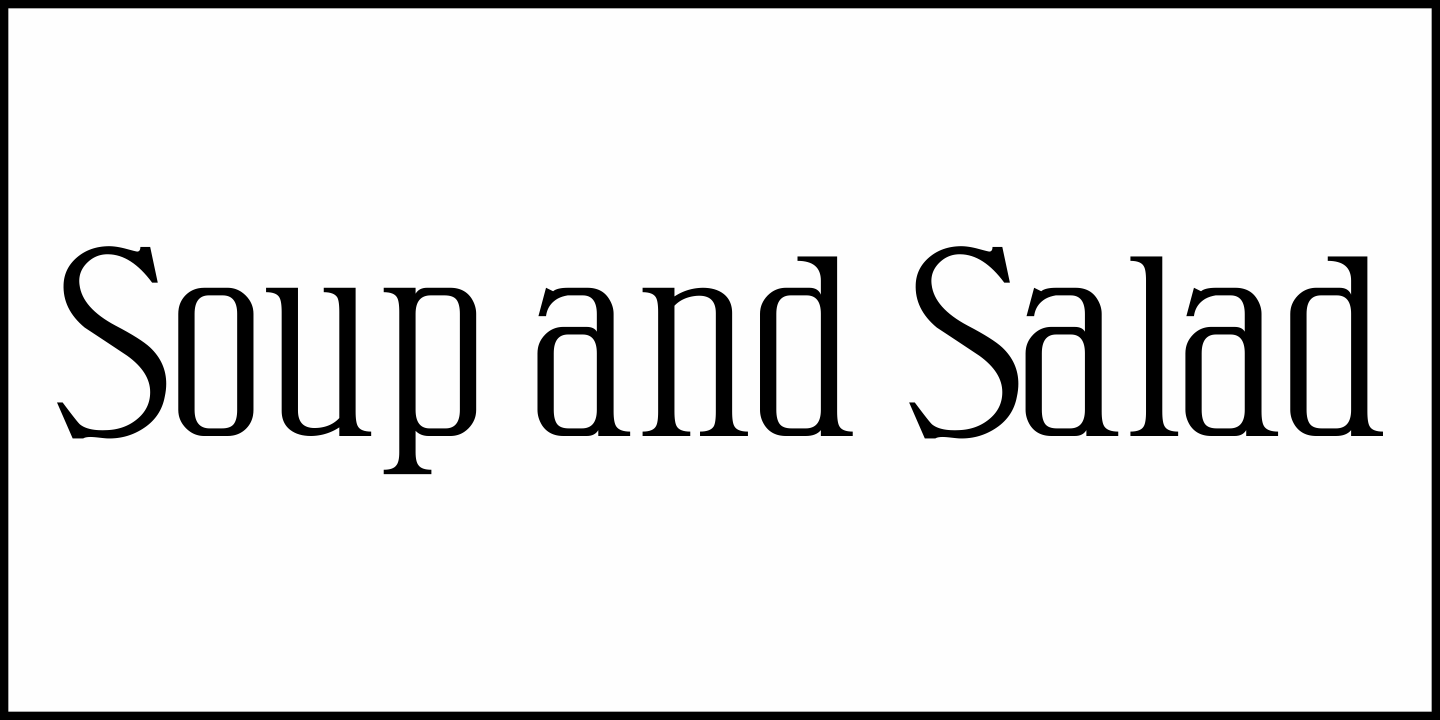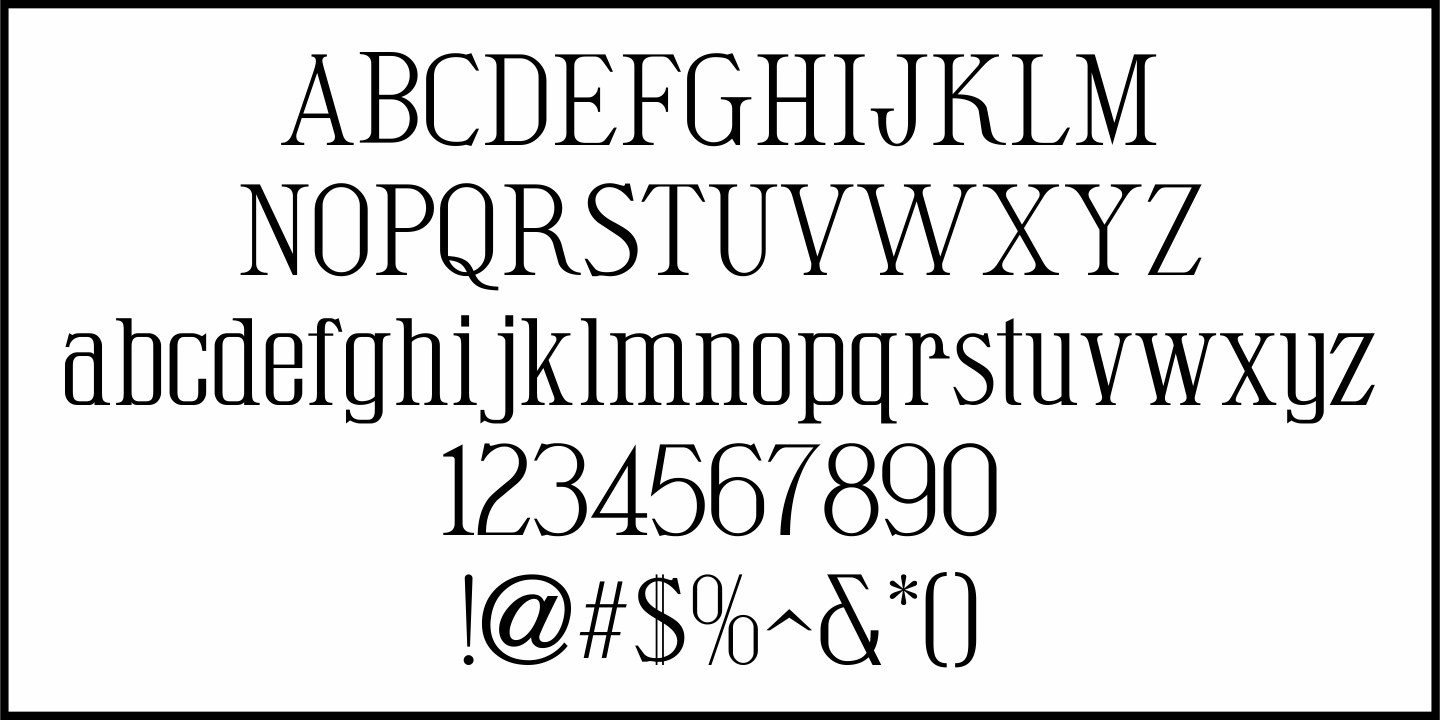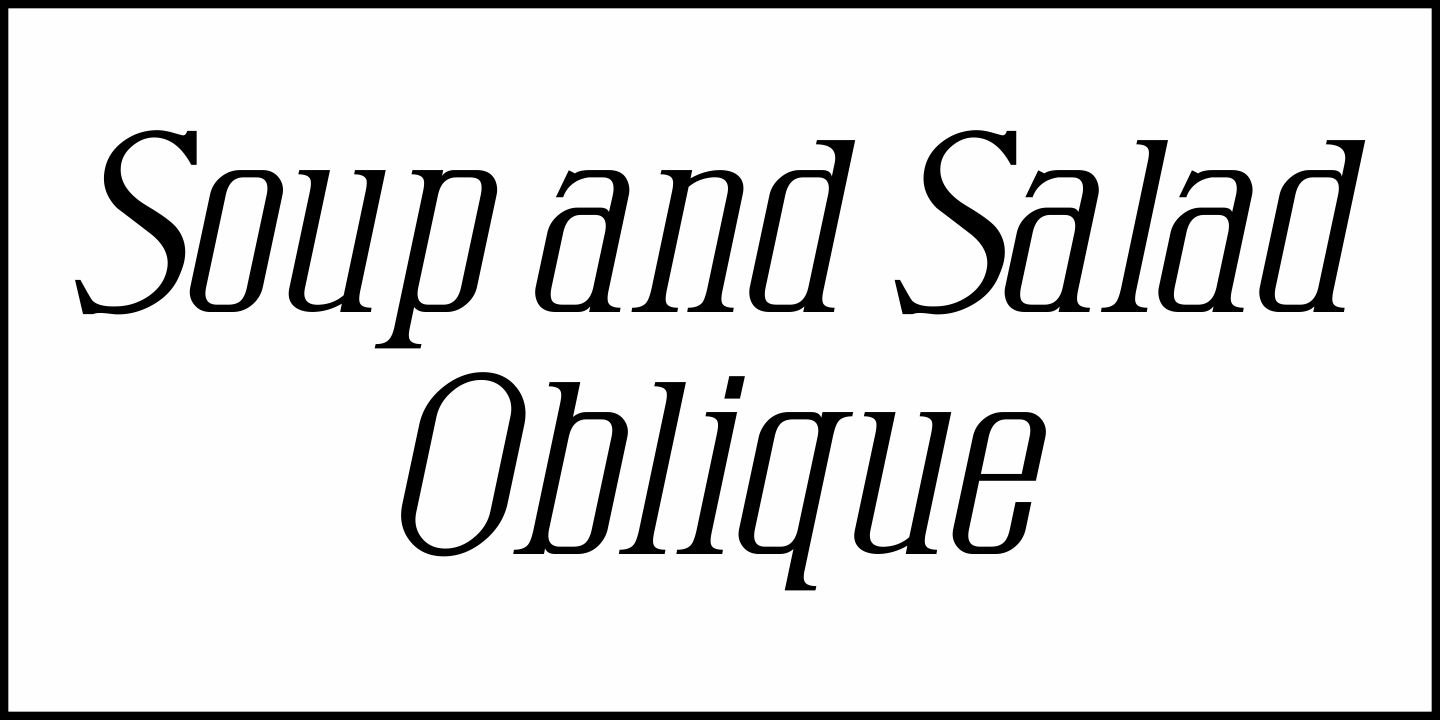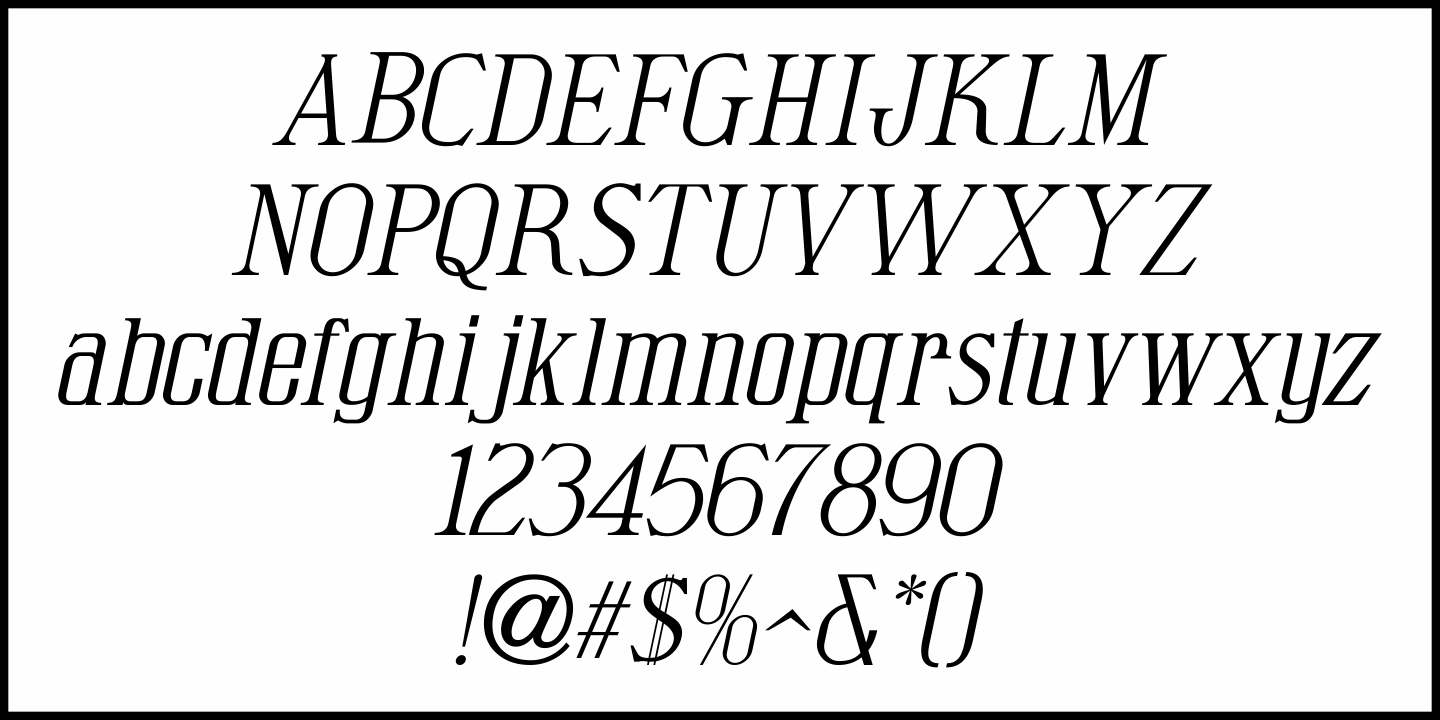
Soup and Salad
Within the 1893 edition of the Barnhart Bros. & Spindler type specimen book is “Bisque”, a text and headline type face with a charmingly eccentric look. Some upper case characters take on more of a squarer look than others, while the lower case has a higher ‘x’ height.
This type revival is now available as Soup and Salad JNL in both regular and oblique versions.